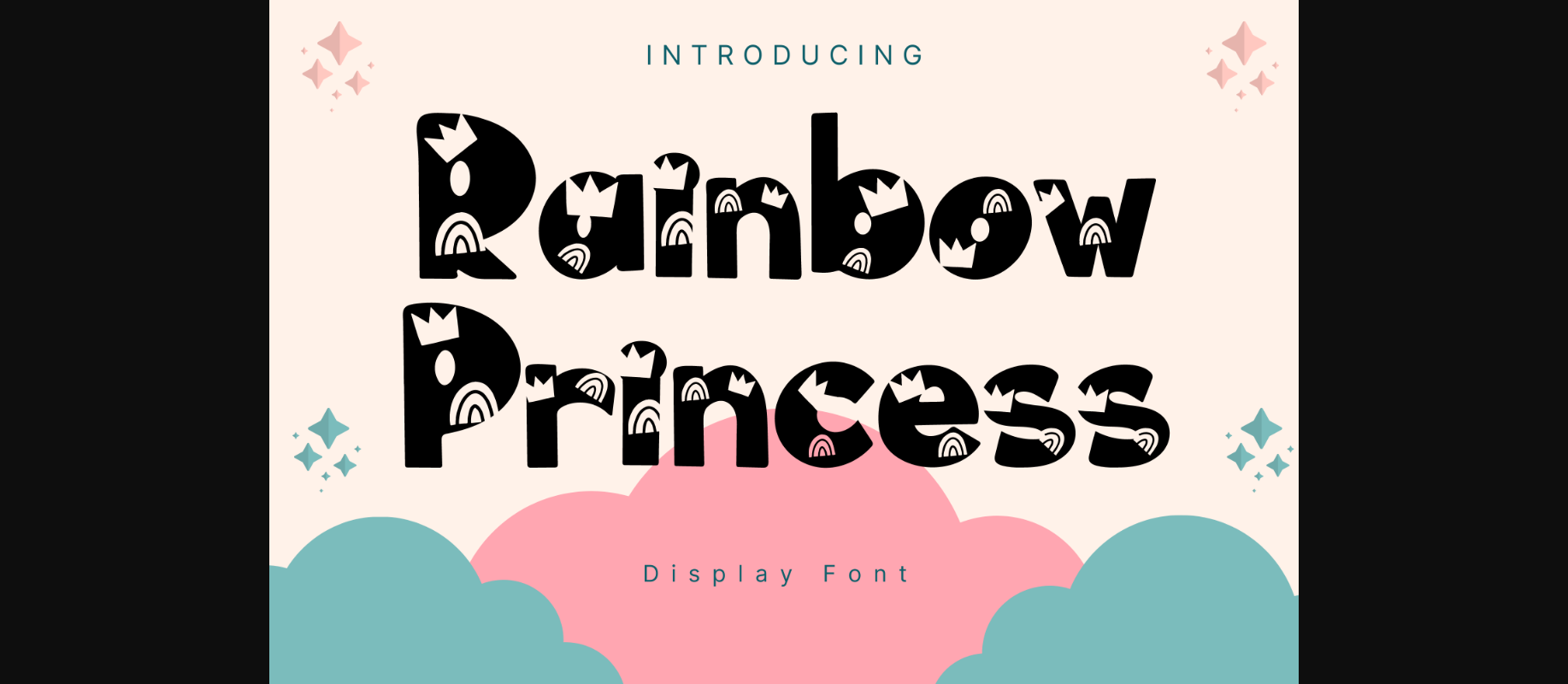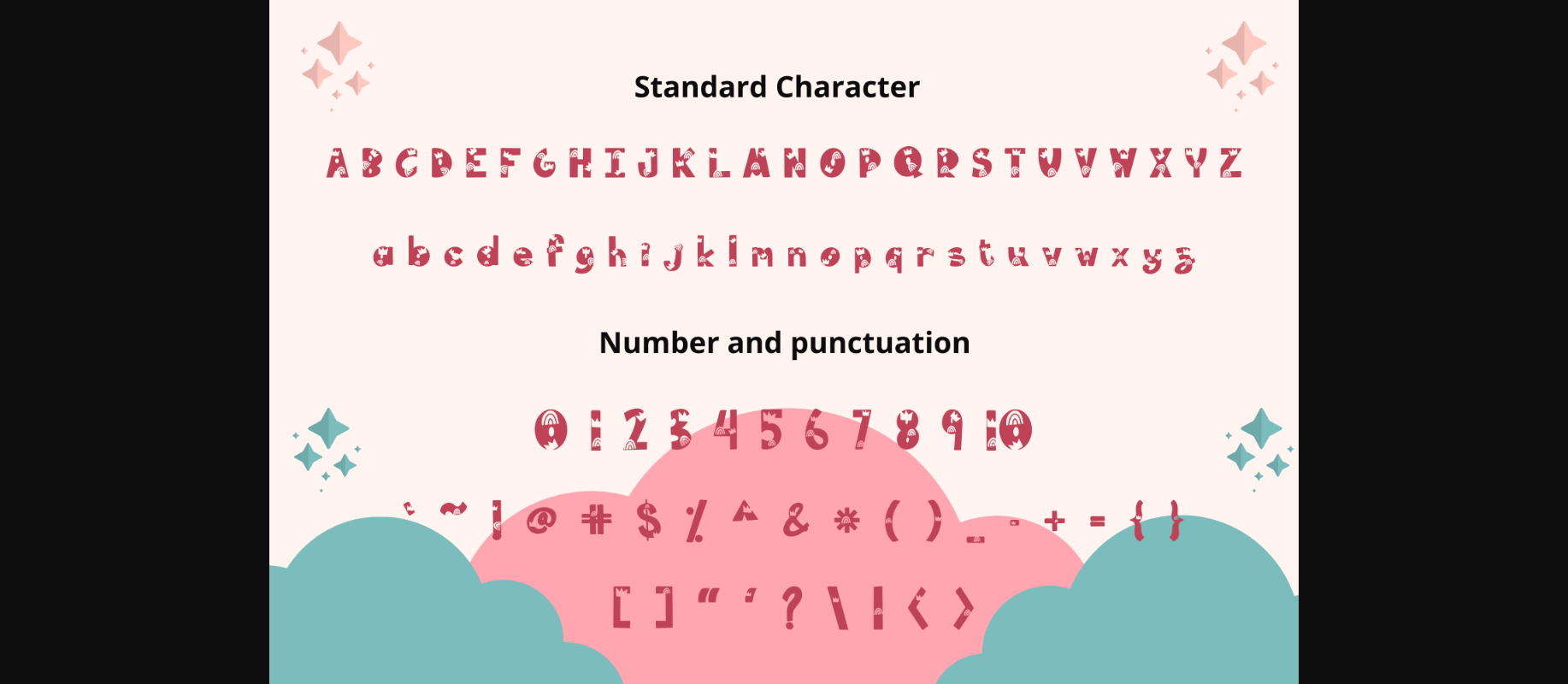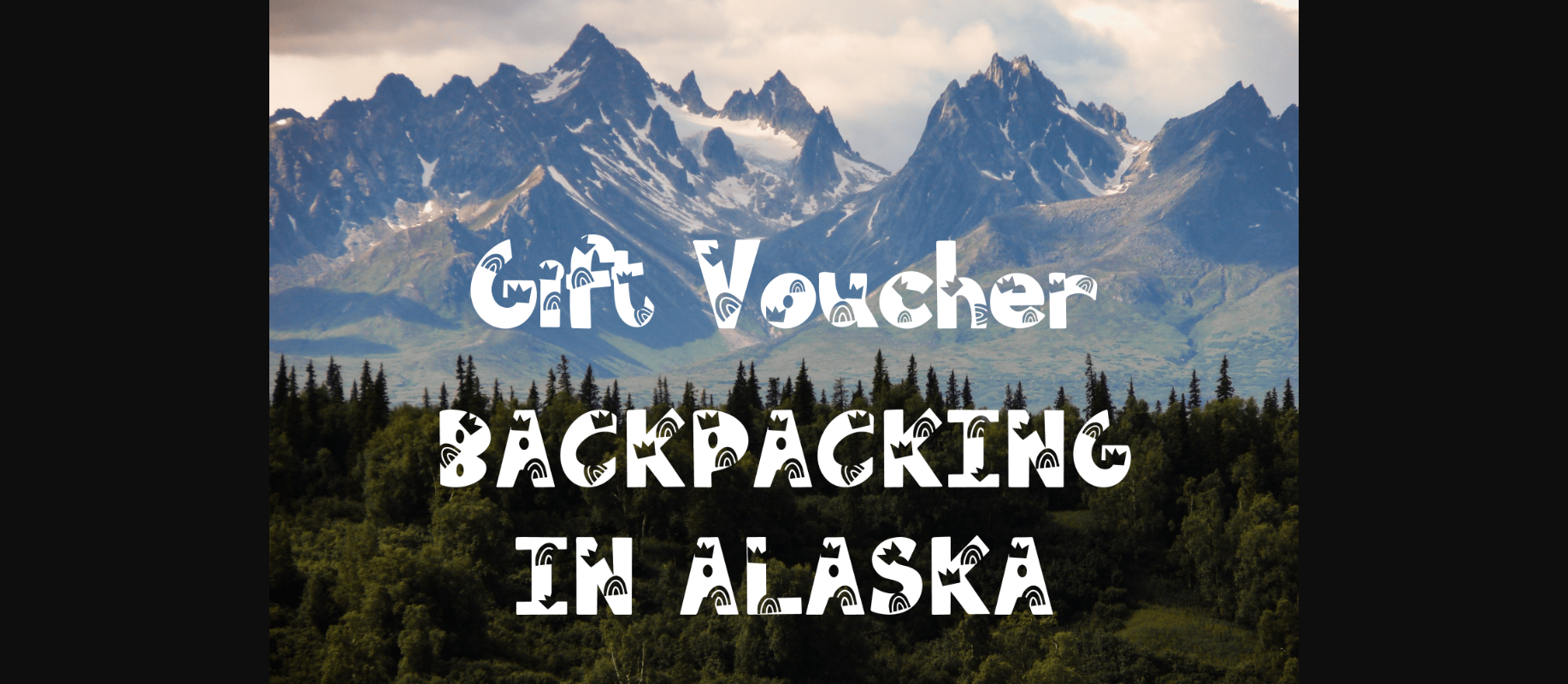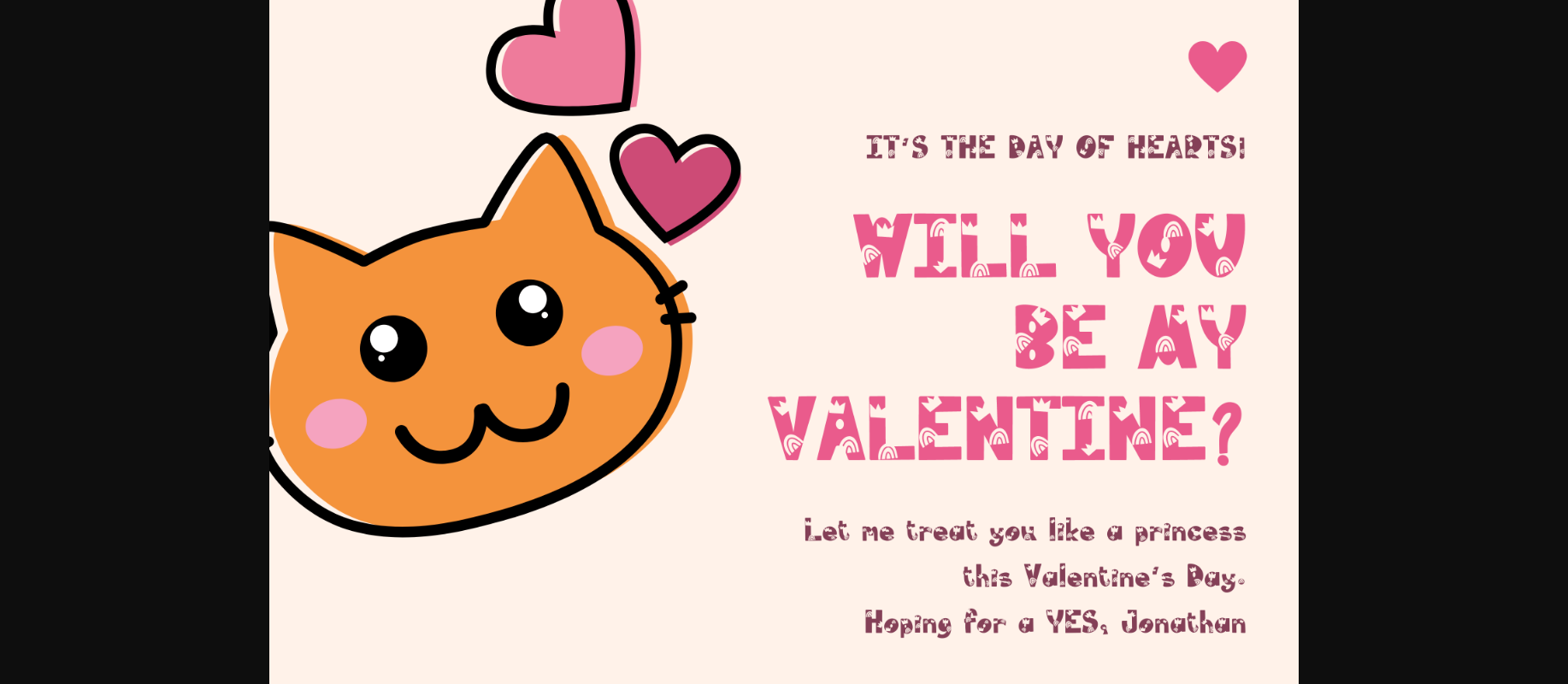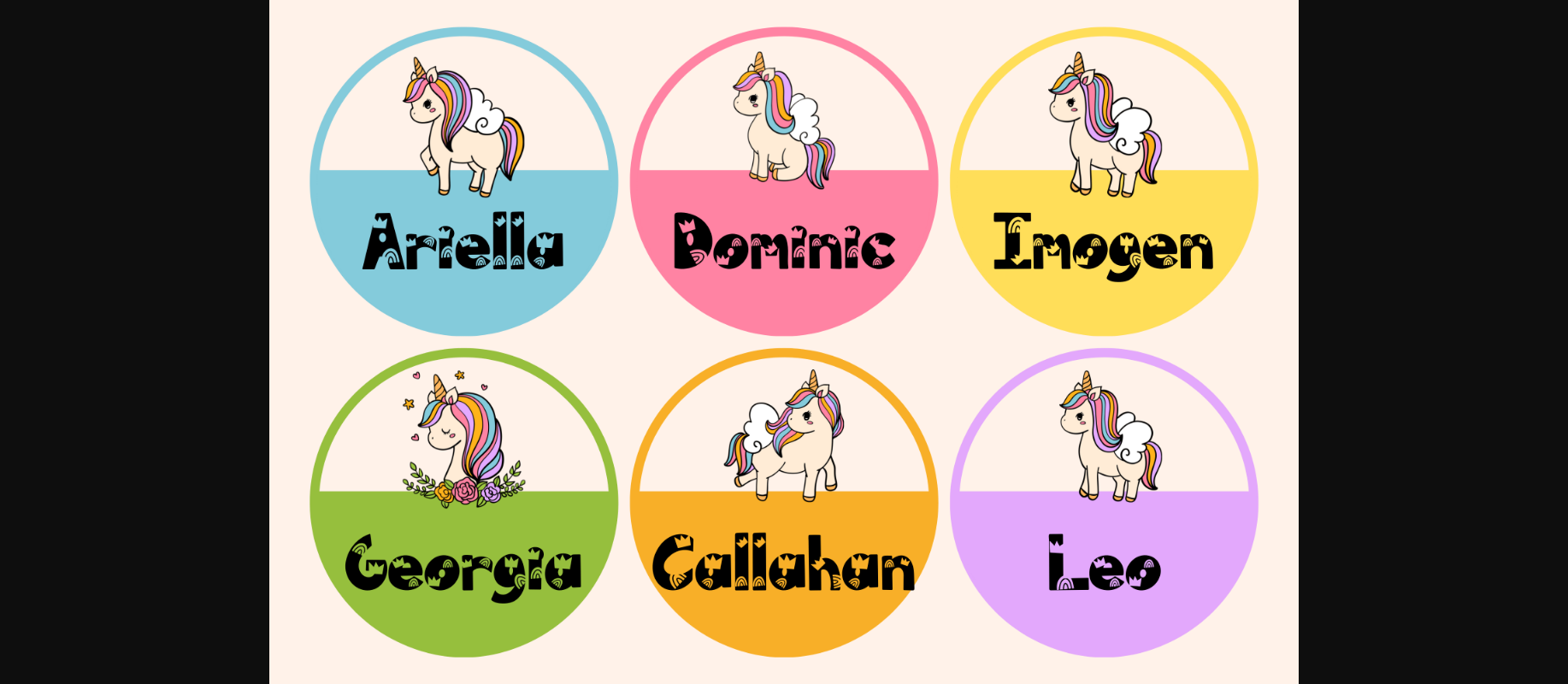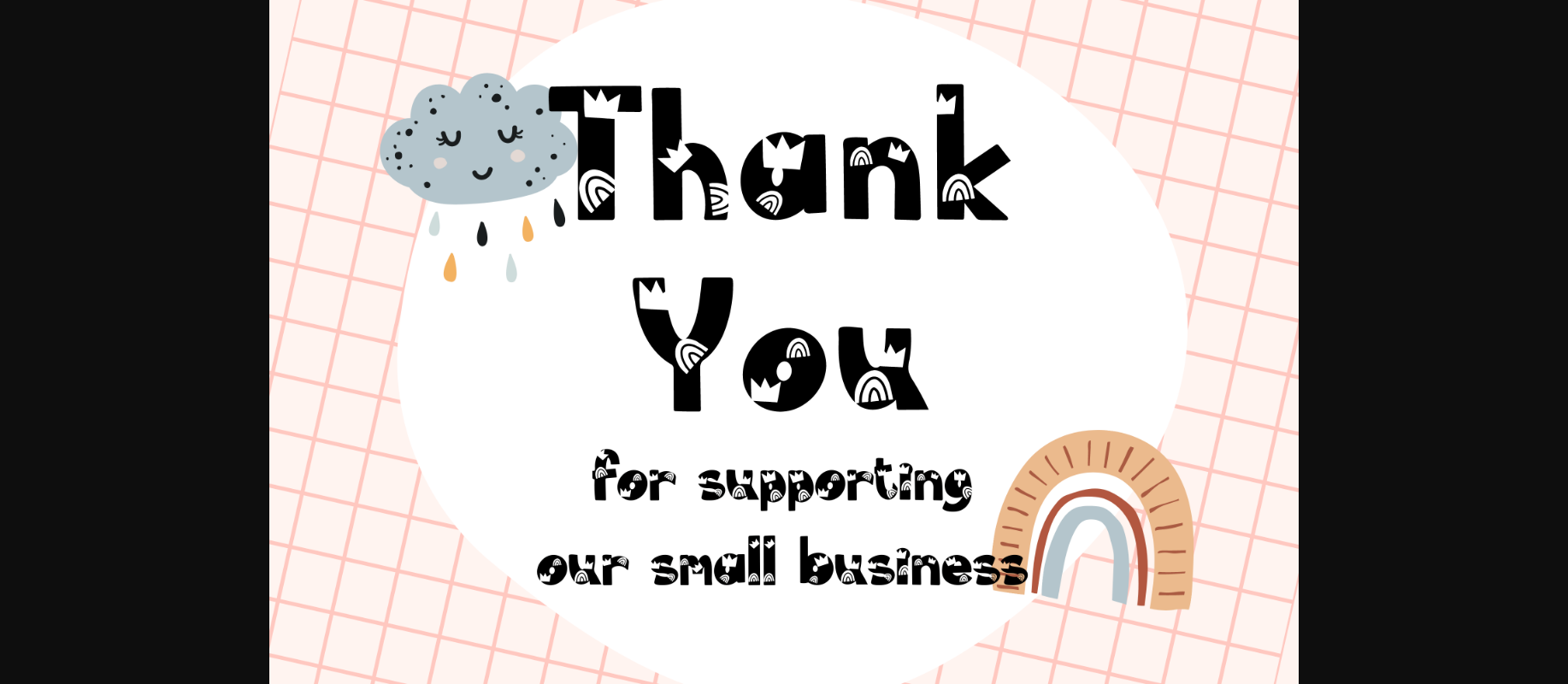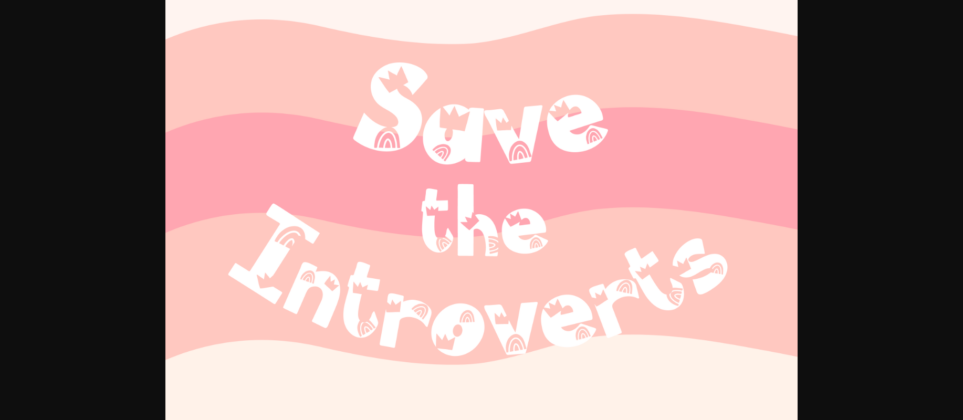
Rainbow Princess Font
About Rainbow Princess Font
Rainbow Princess is a whimsical and adorable decorative font. It can easily be matched to an incredibly large set of projects, so add it to your creative ideas and notice how it makes them stand out!